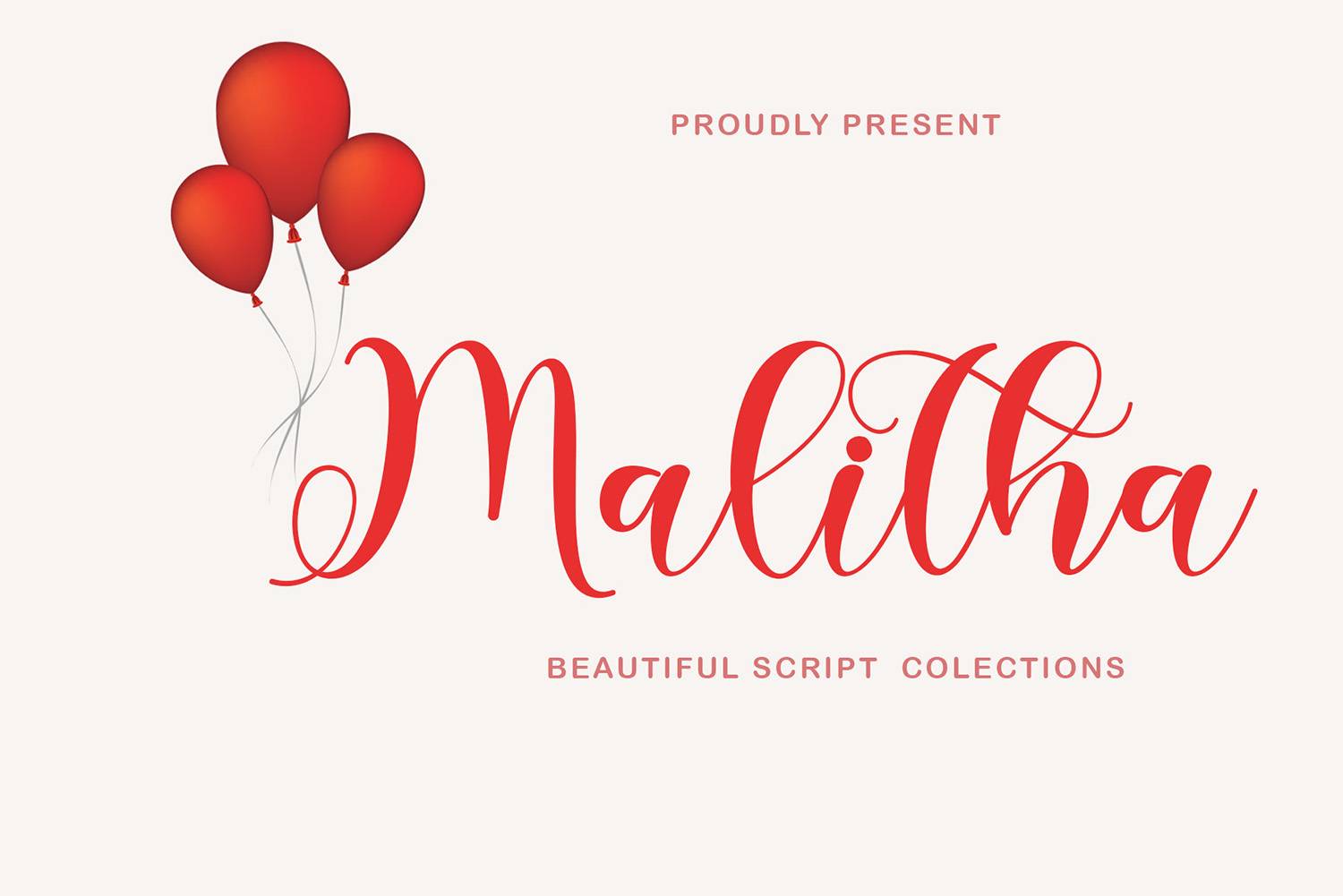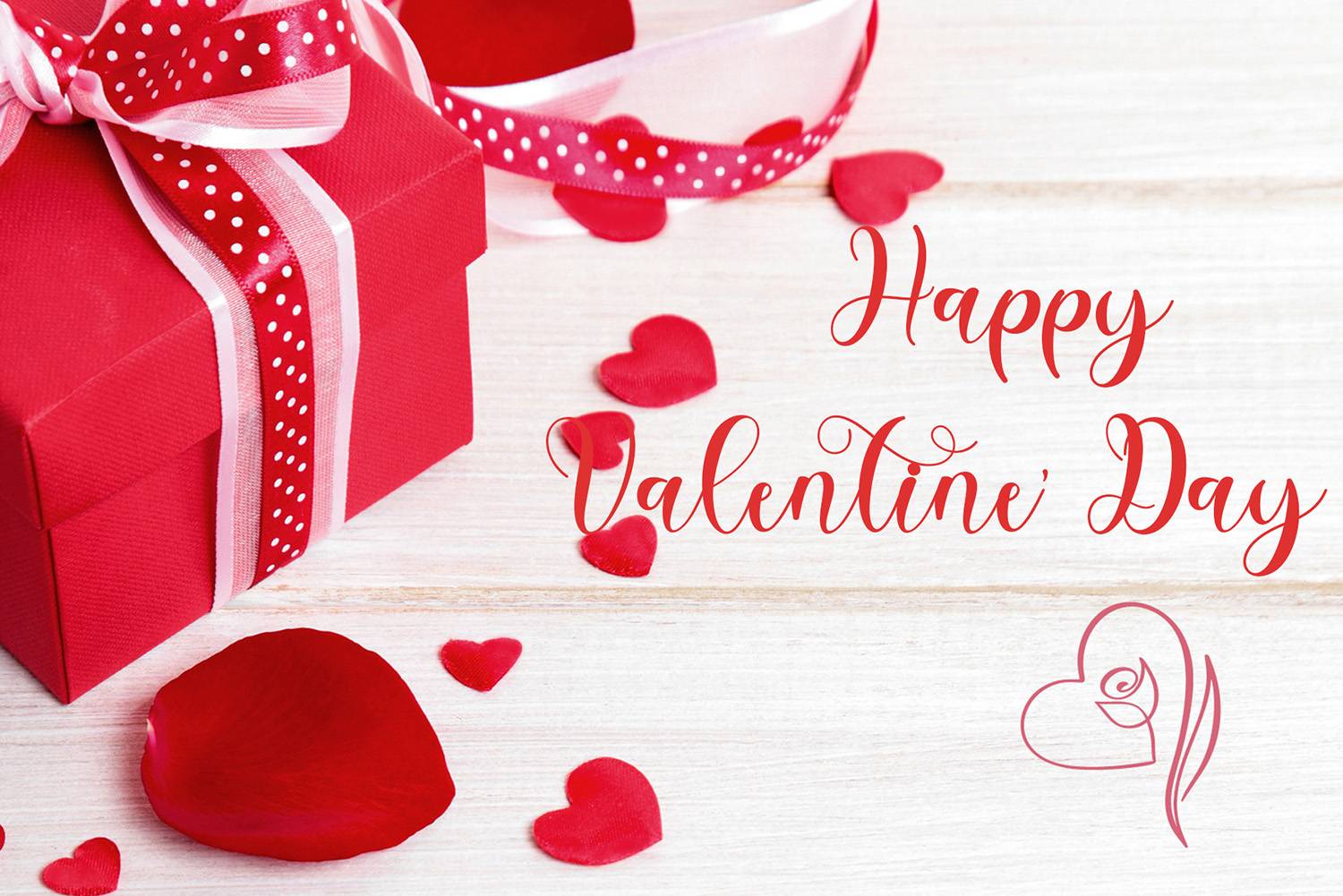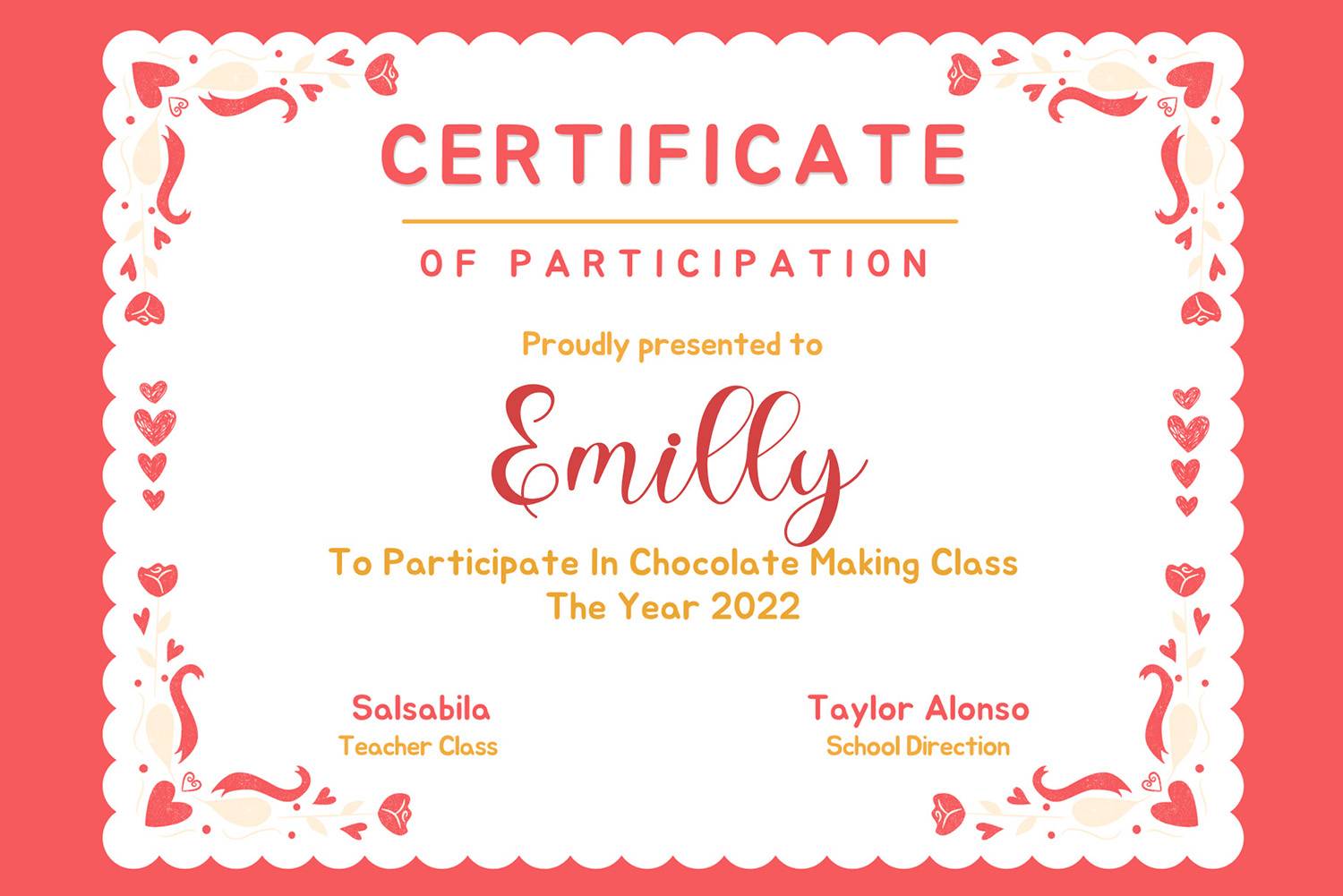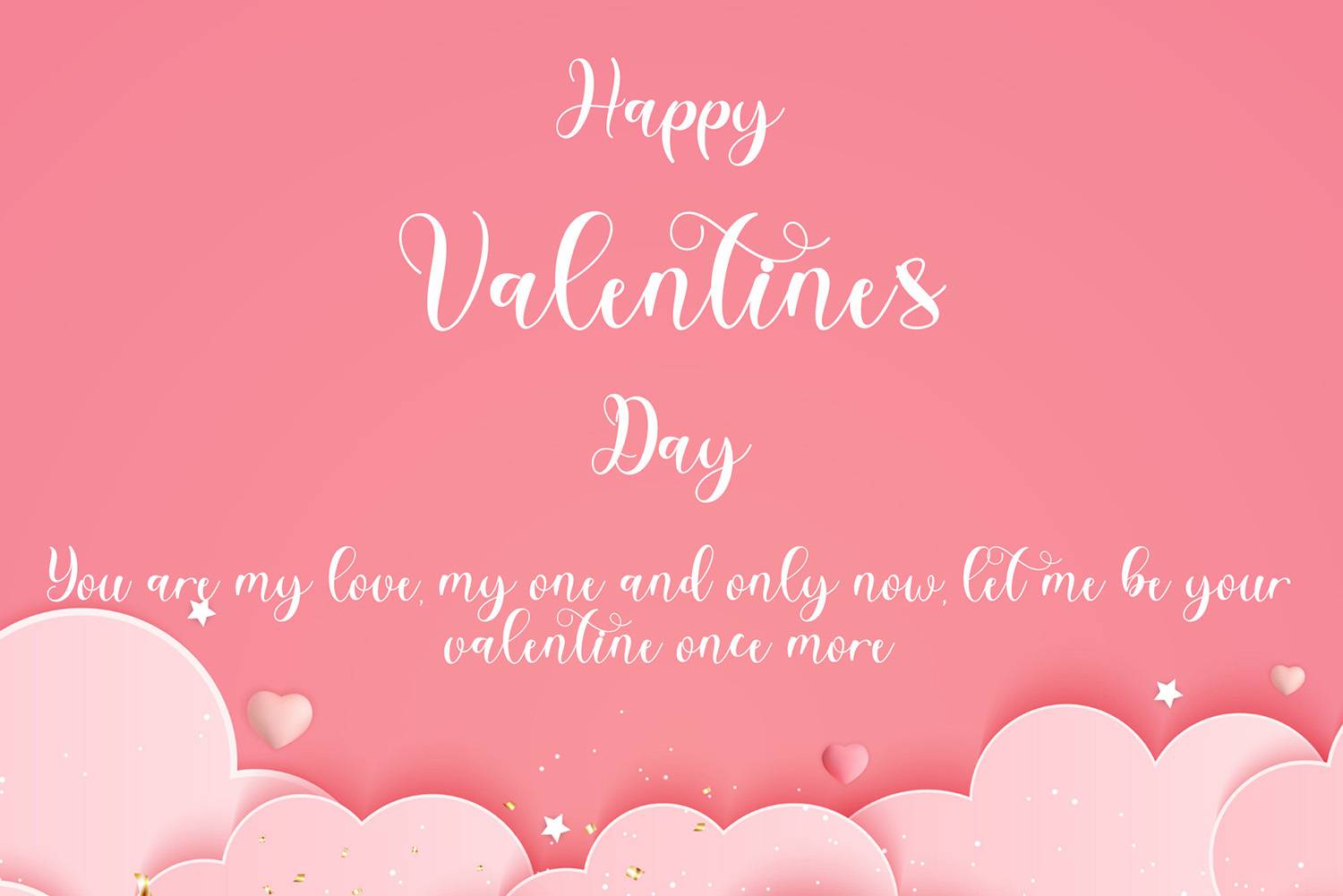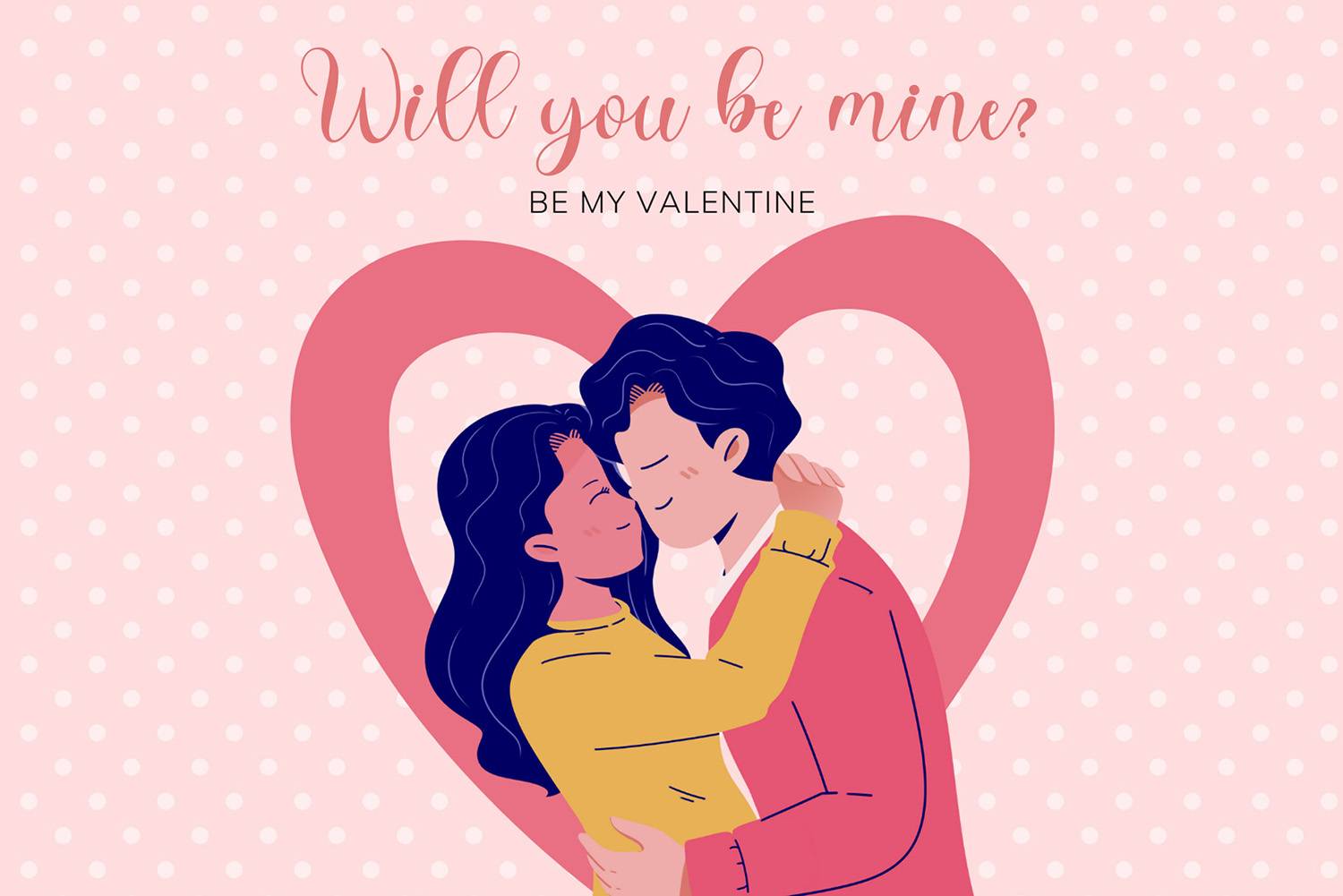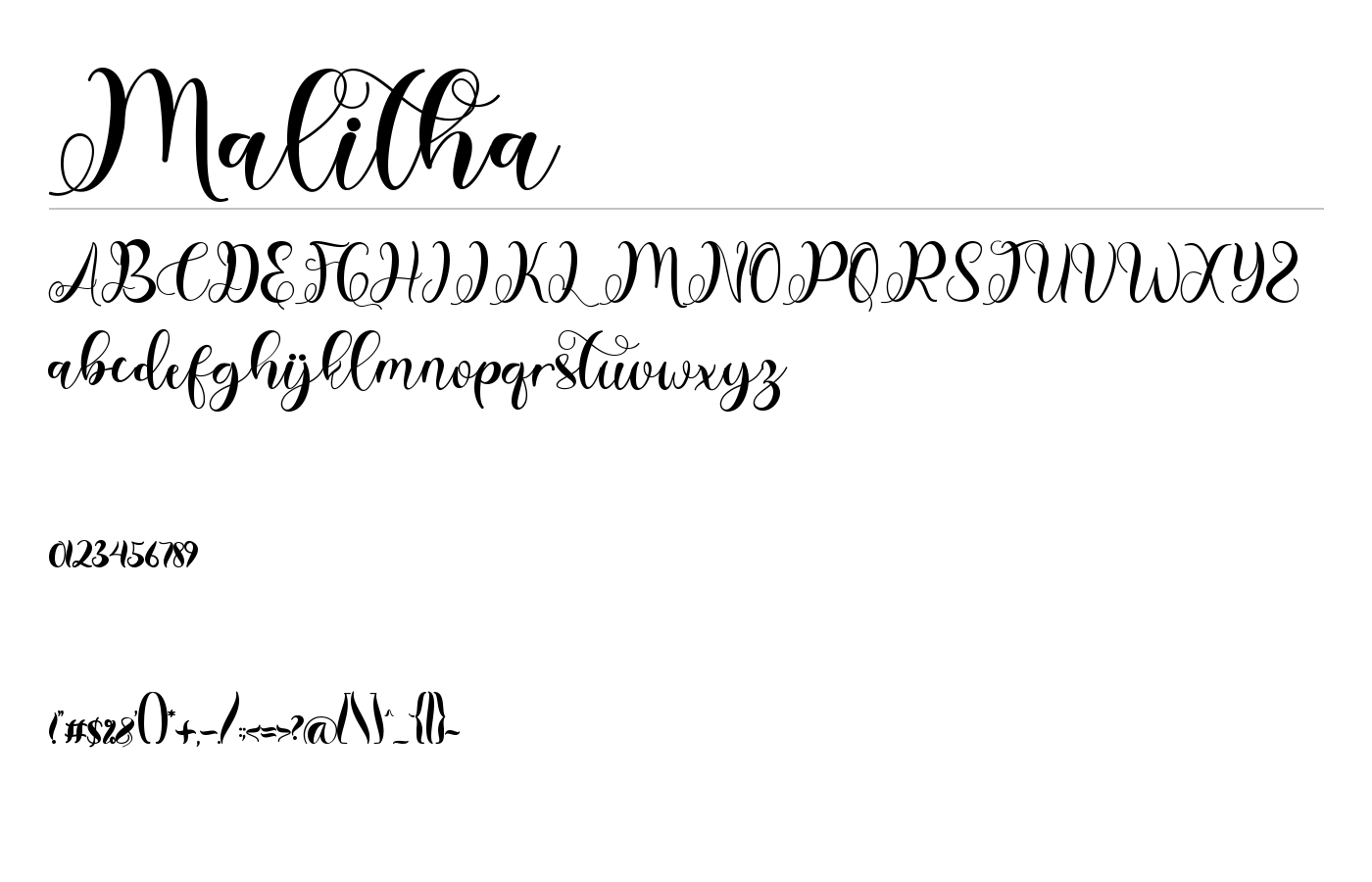
Malitha is an elegant script font featuring delicate, flowing strokes with intricate swirls and flourishes that give it a refined, decorative charm. Its medium weight and consistent stroke contrast make it ideal for sophisticated branding, wedding invitations, and stylish headlines where a touch of classic elegance and creativity is desired. This font’s graceful letterforms convey a romantic and artistic personality, perfect for projects that seek to evoke beauty and luxury.
Malitha Font
About Malitha Font
| Font family | Malitha Font |
| Designer | Selvia Design 2022 (Selvia Cahya Kusuma Devi) |